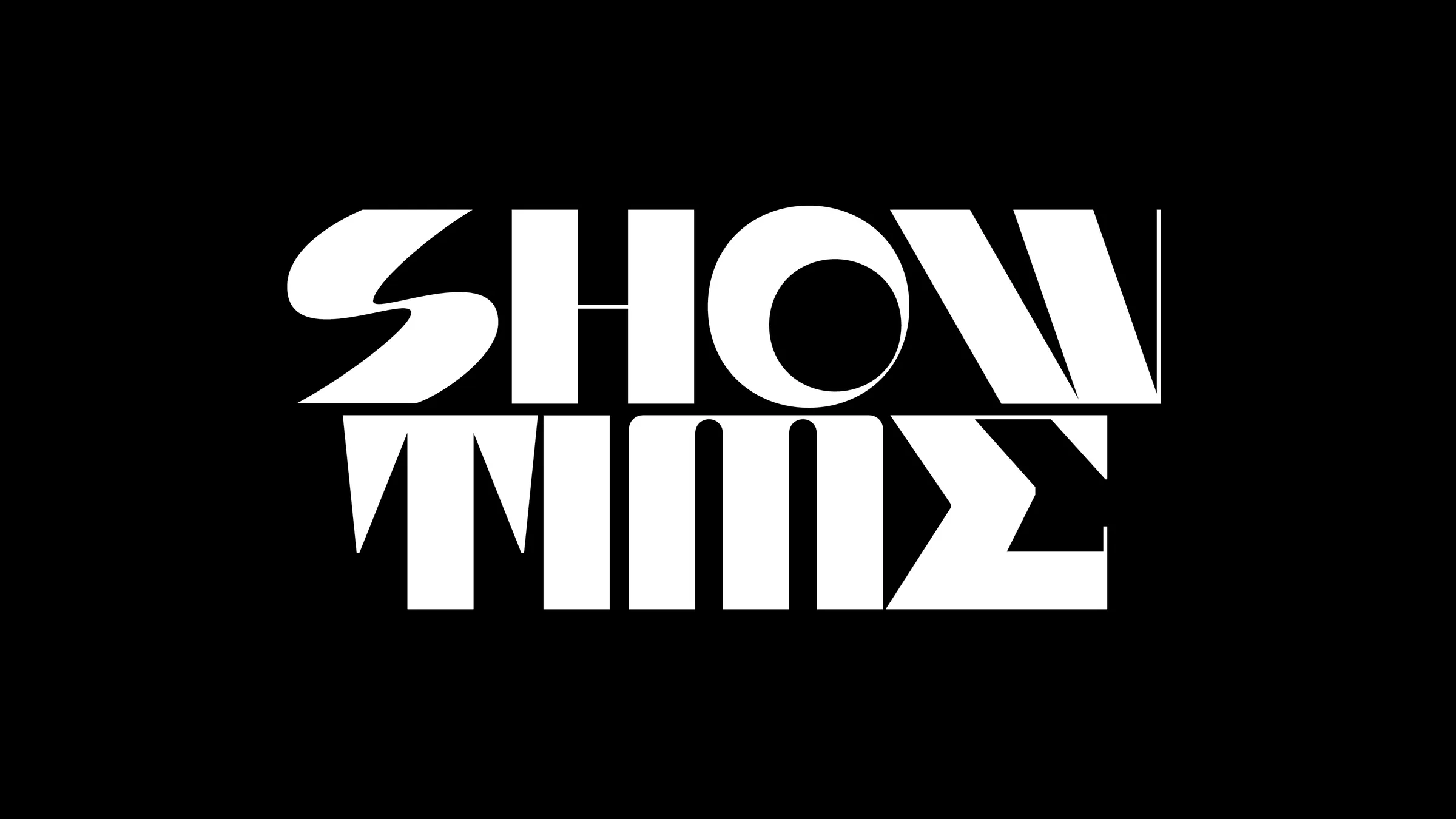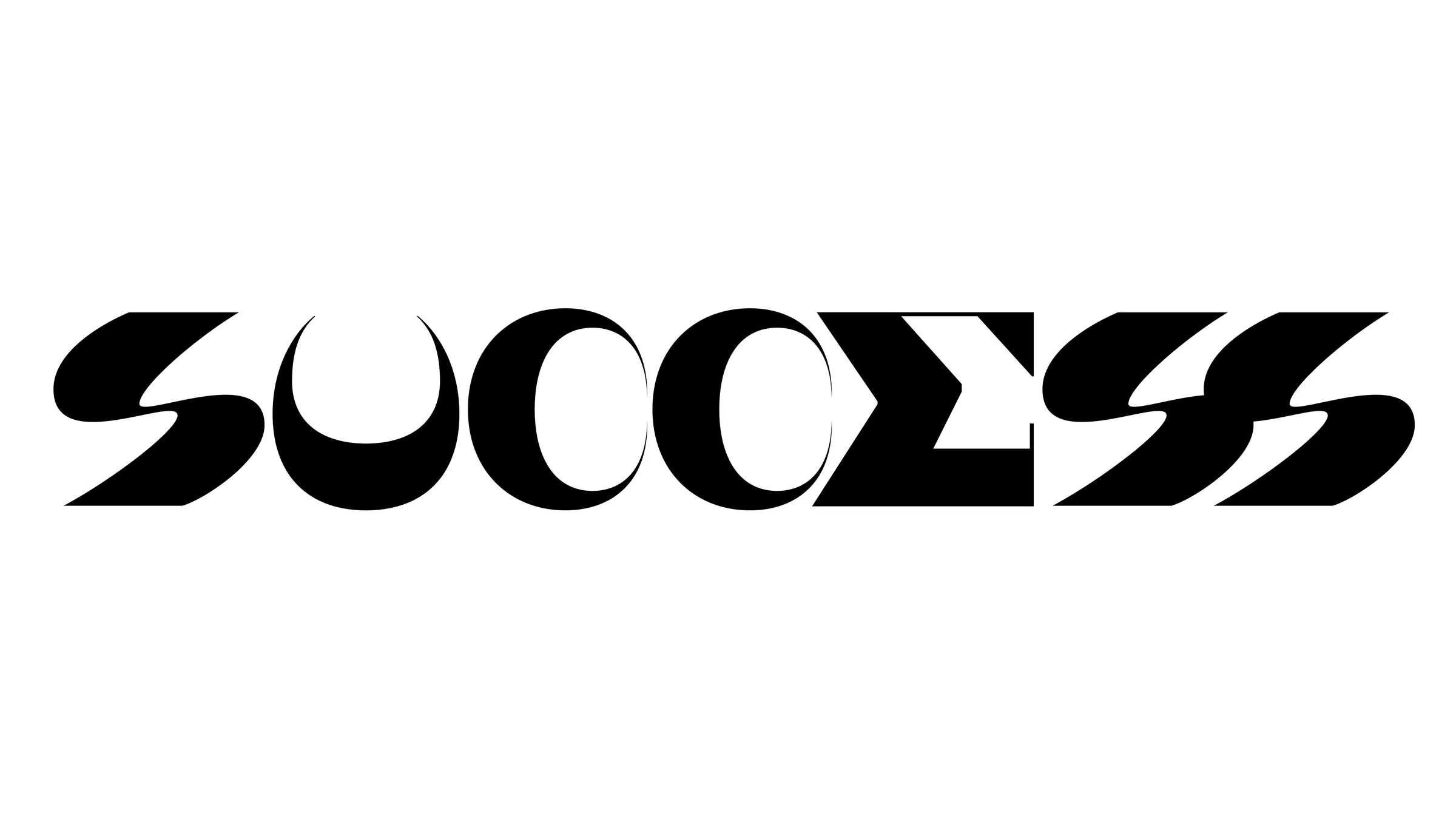
Kamura is a bold exploration of a display typeface in uppercase only. Its distinctive features lie in its extreme and experimental shapes. Each letter seems to come from a family of distinct shapes that, at first glance, might not necessarily blend harmoniously, but which come together in a way that is sometimes forced, sometimes more simply, to form new letters.This typeface is characterised by a strong contrast and a link between geometric elements and more organic shapes. This combination creates a unique visual interplay, where the rigour of geometry meets the fluidity of organic forms. Each letter of Kamura thus becomes an alternative lettering scheme, and the whole font offers a completely experimental typographic experience.